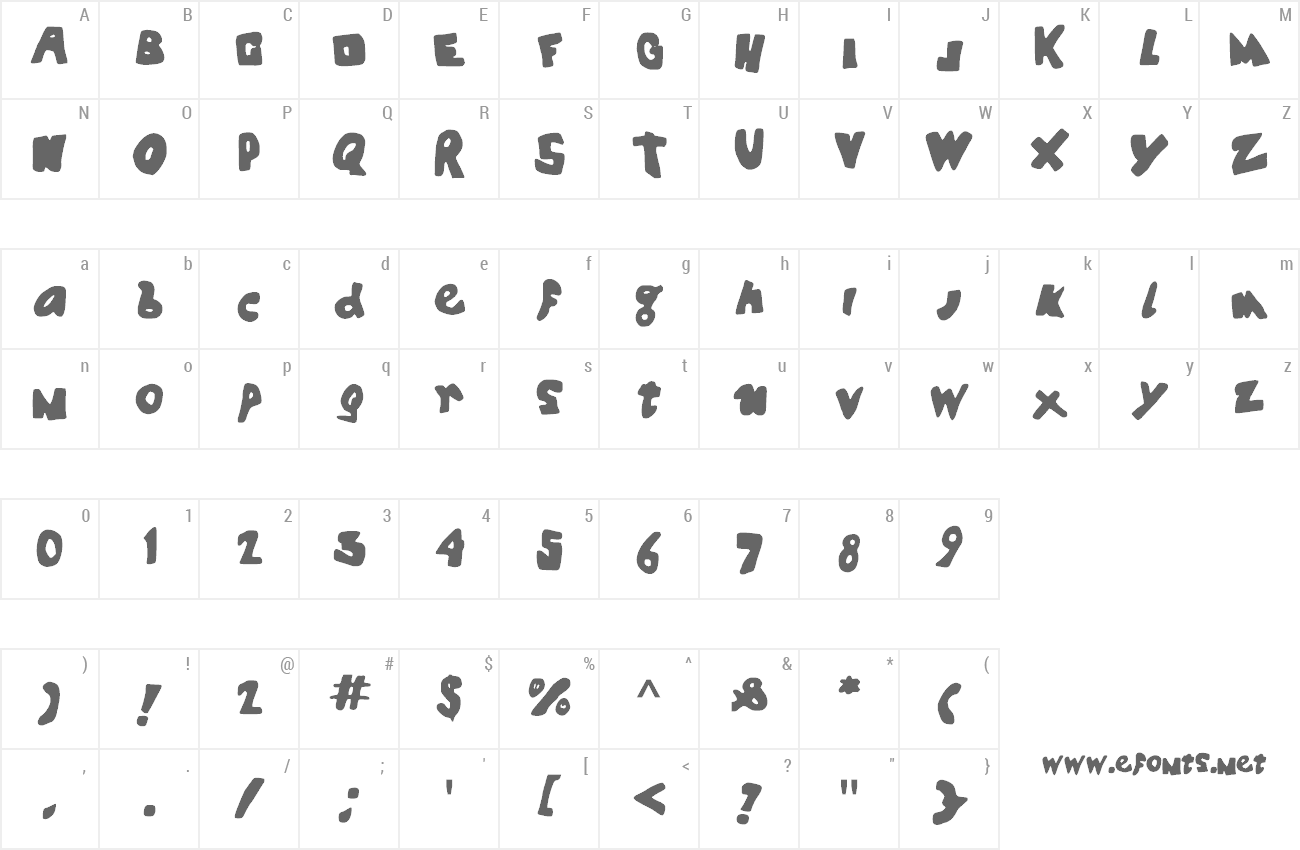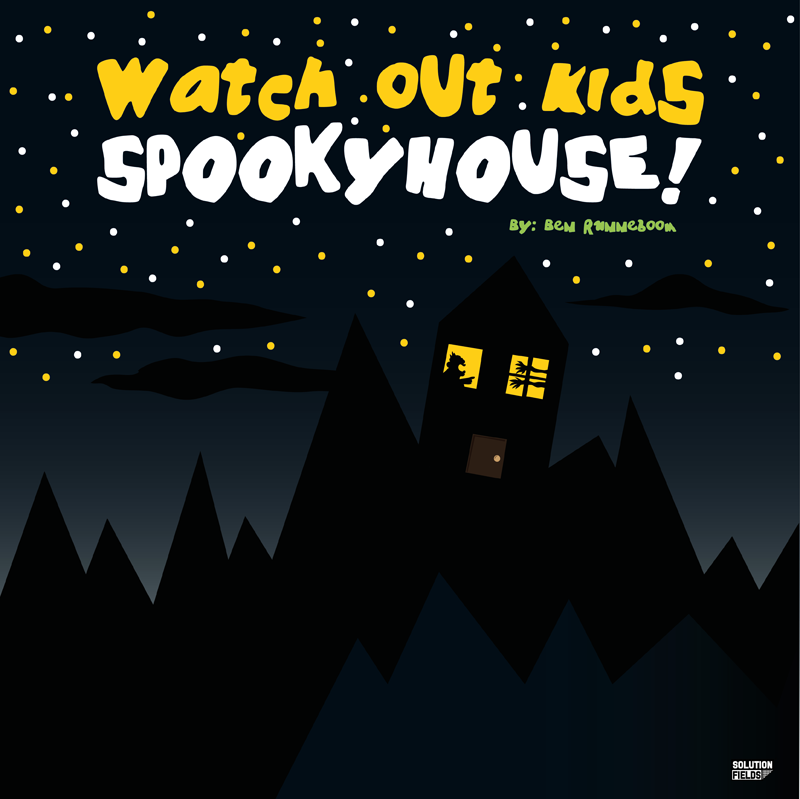
| Font name: | Spookyhouse |
| Author: | Ben Runneboom |
| Note by Ben Runneboom | |
SPOOKYHOUSE! Spooky cartoon font, free to use! Don't be scared... |